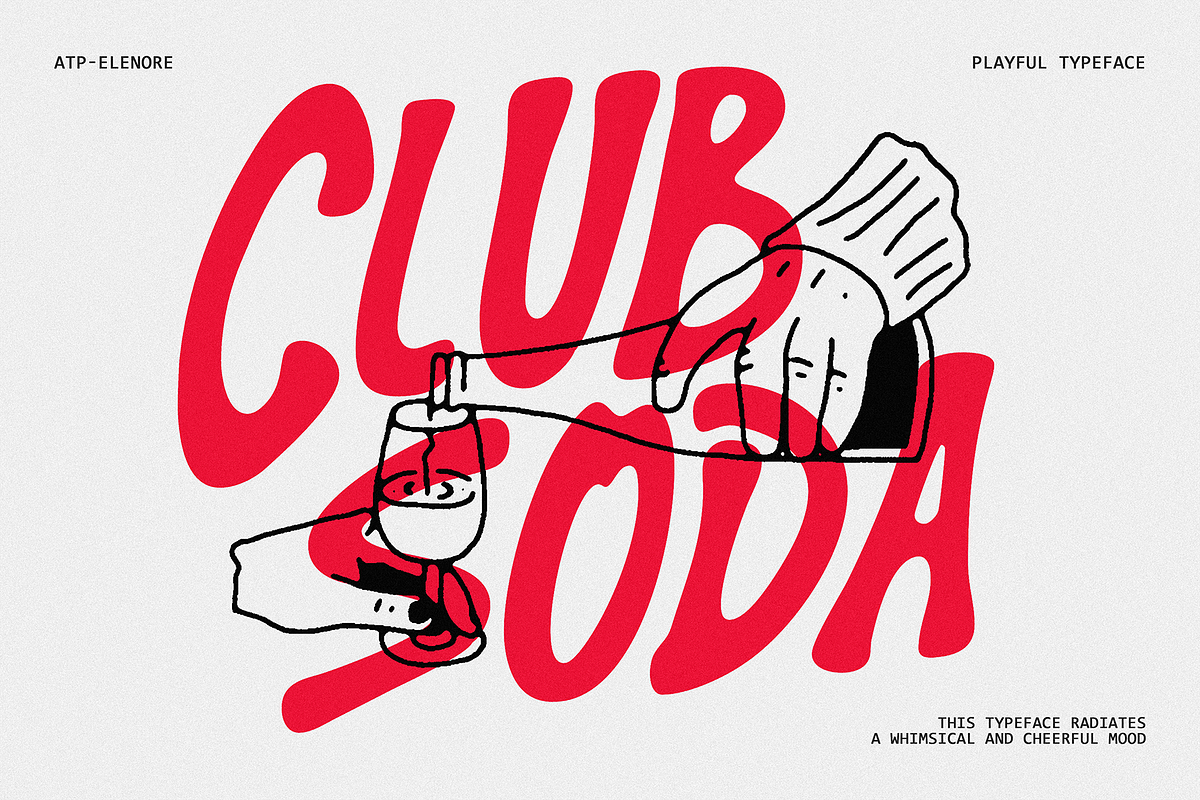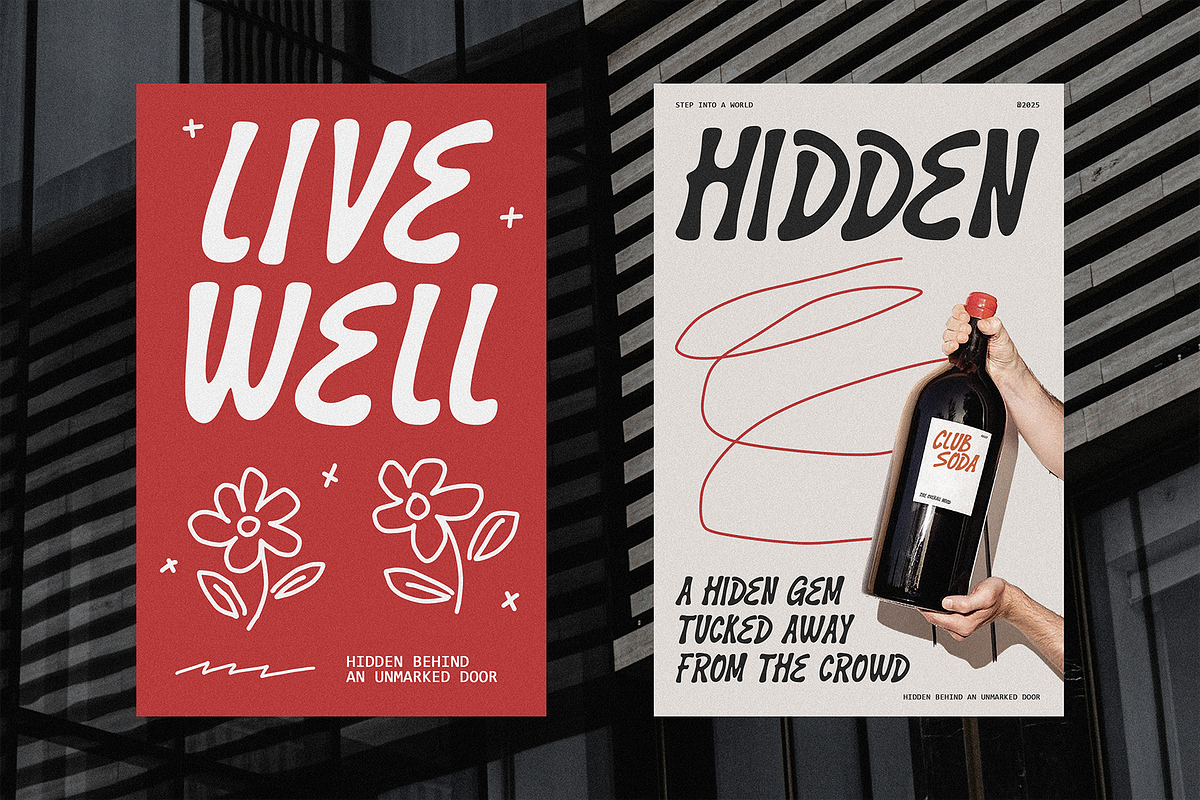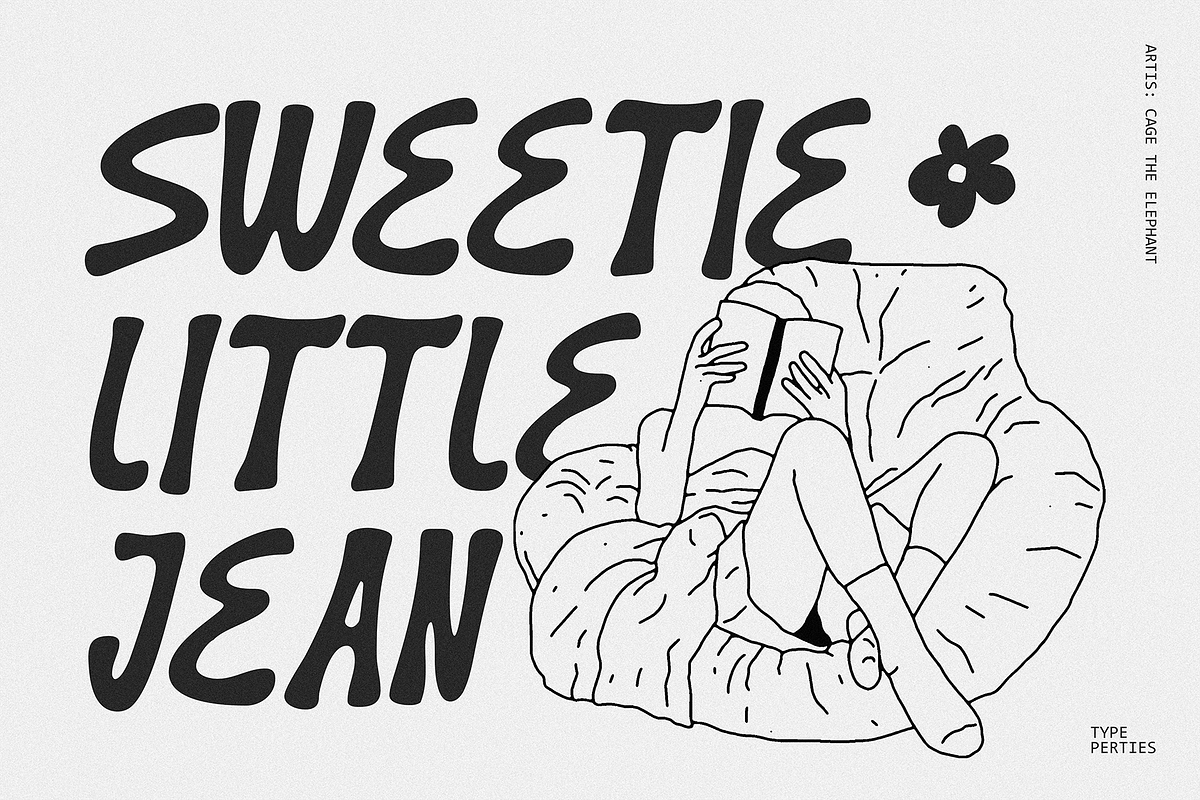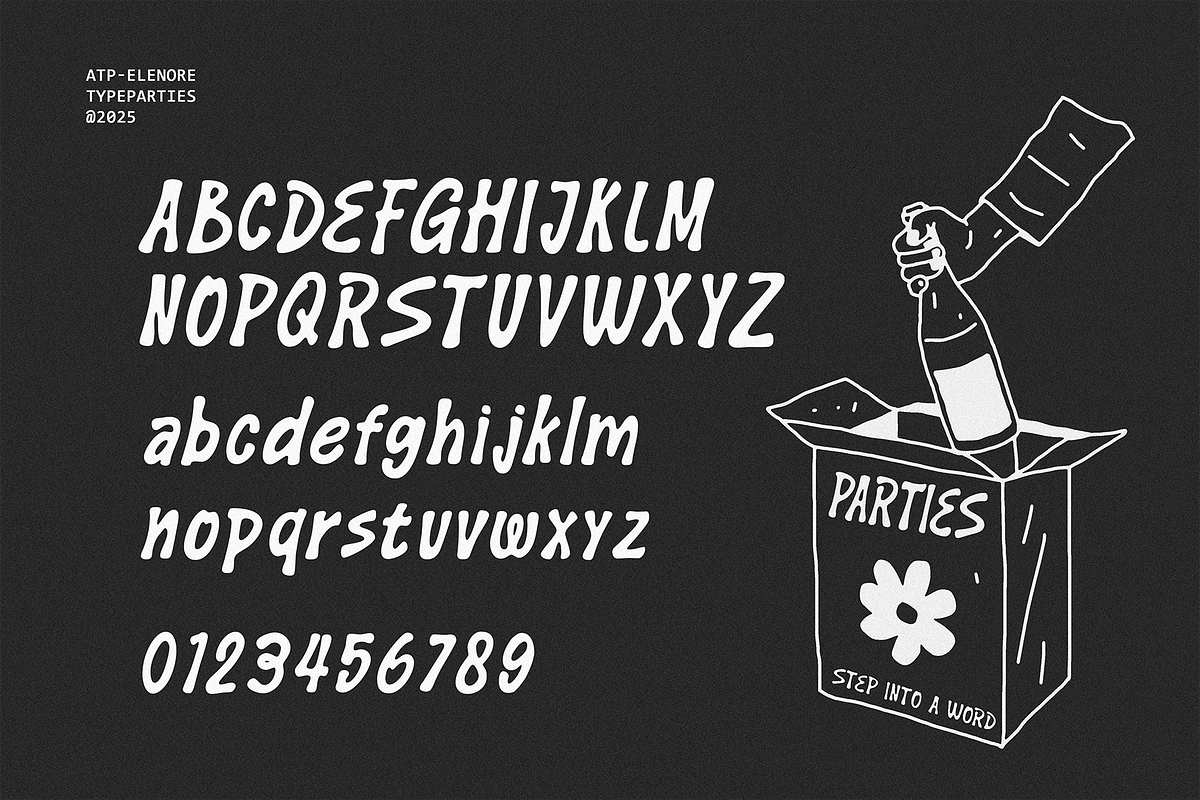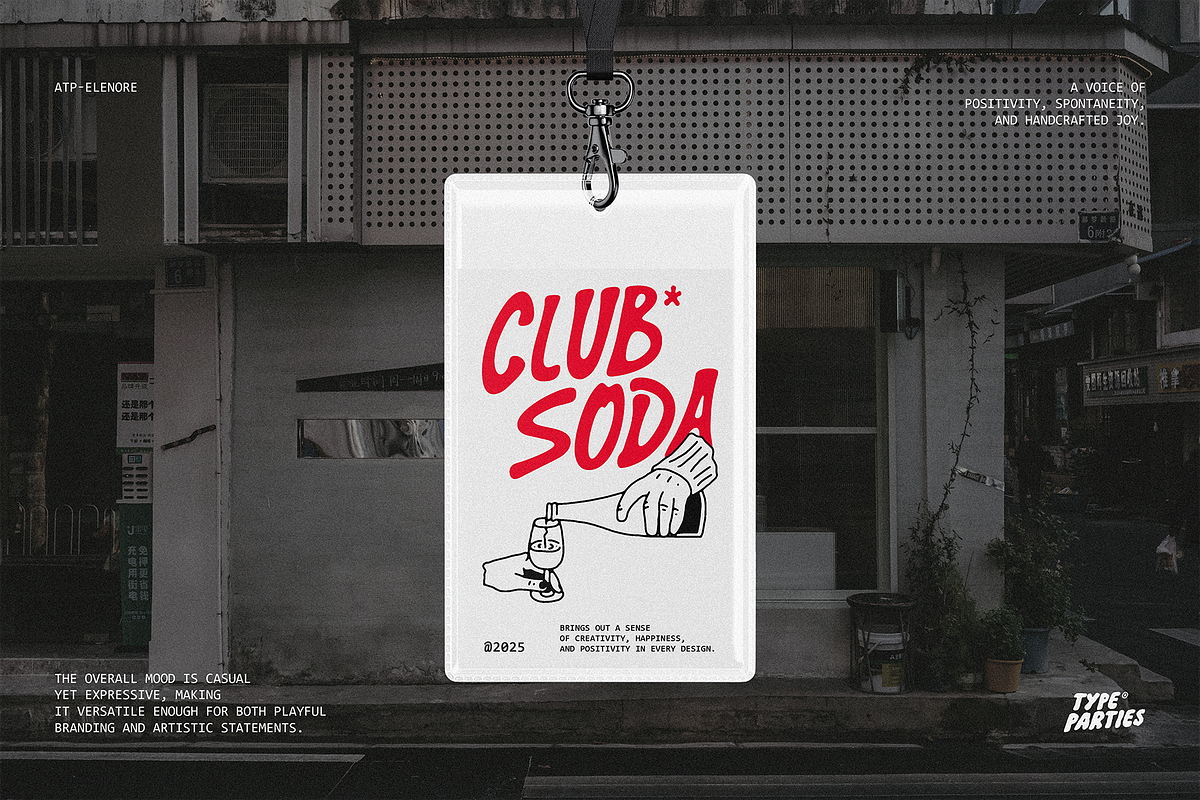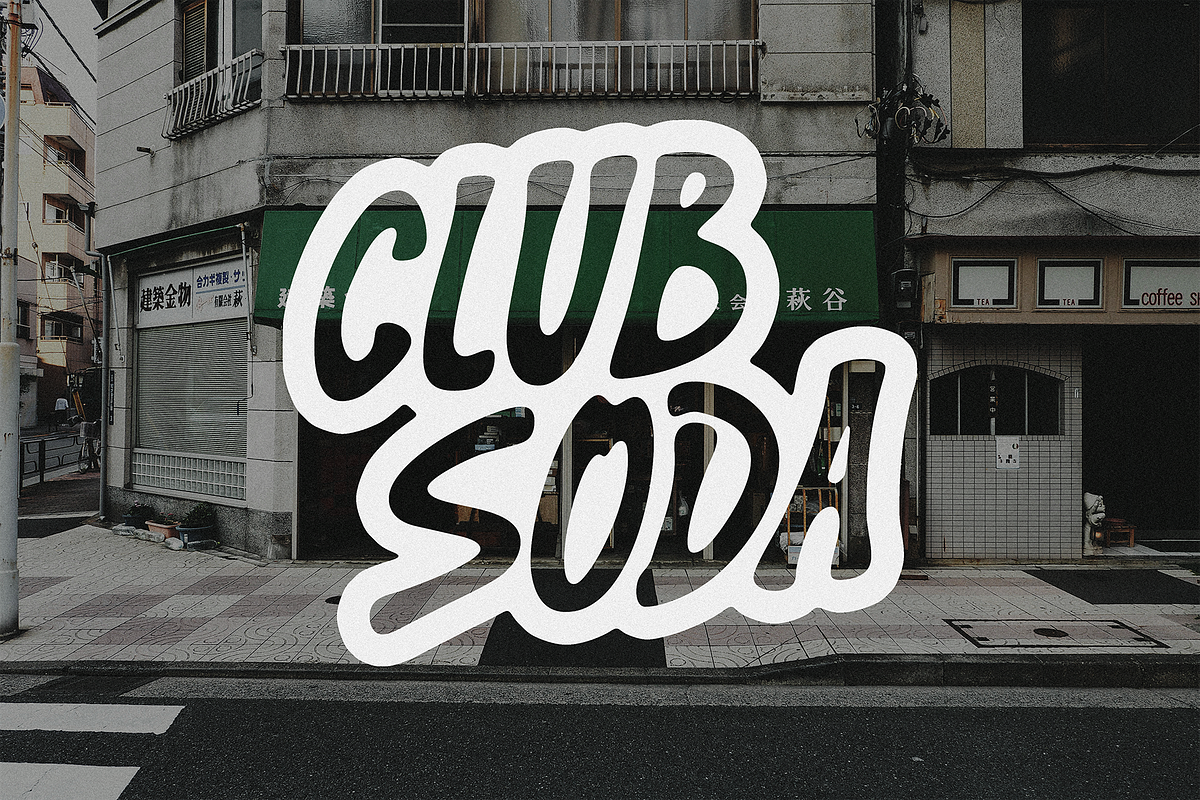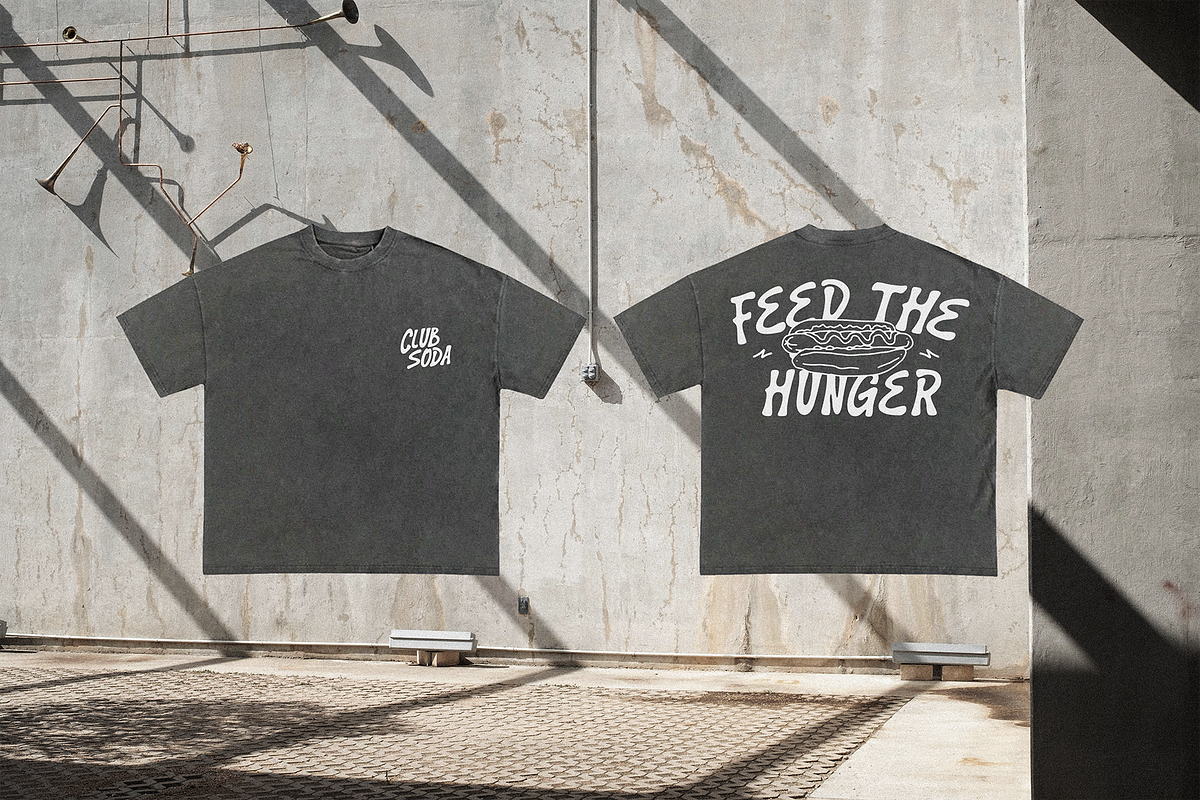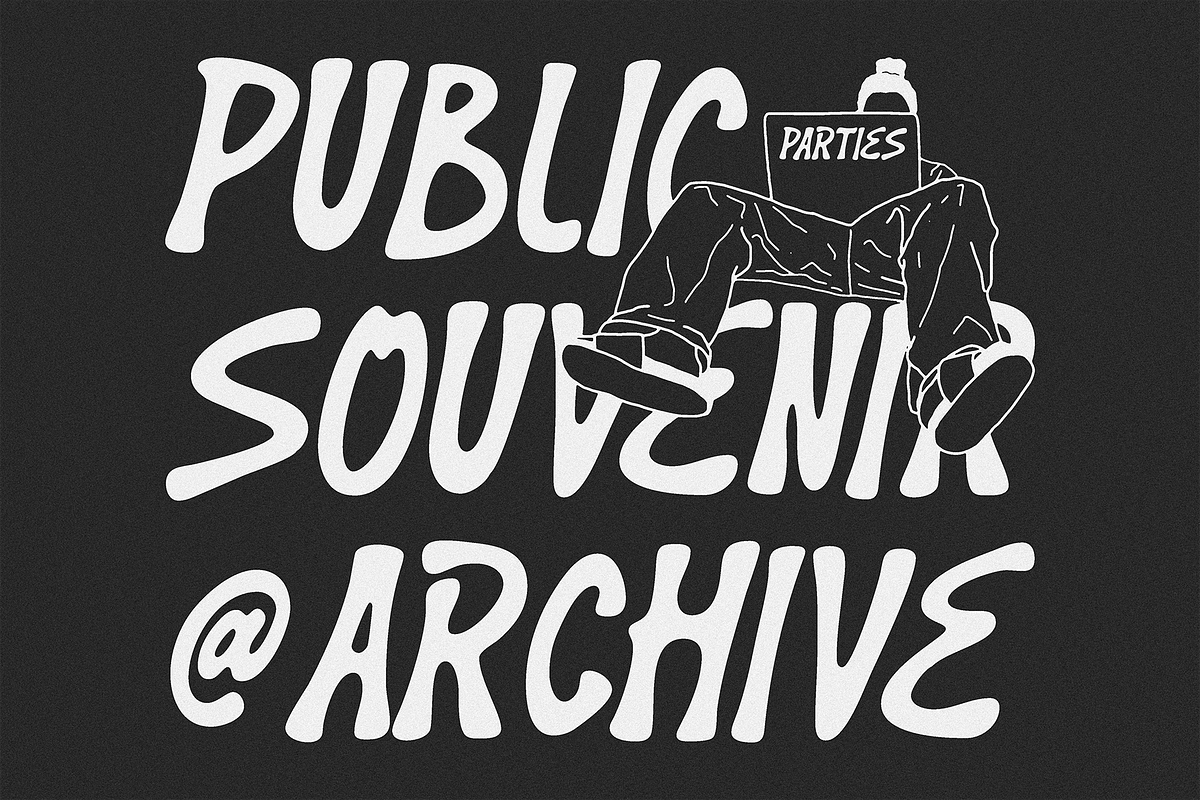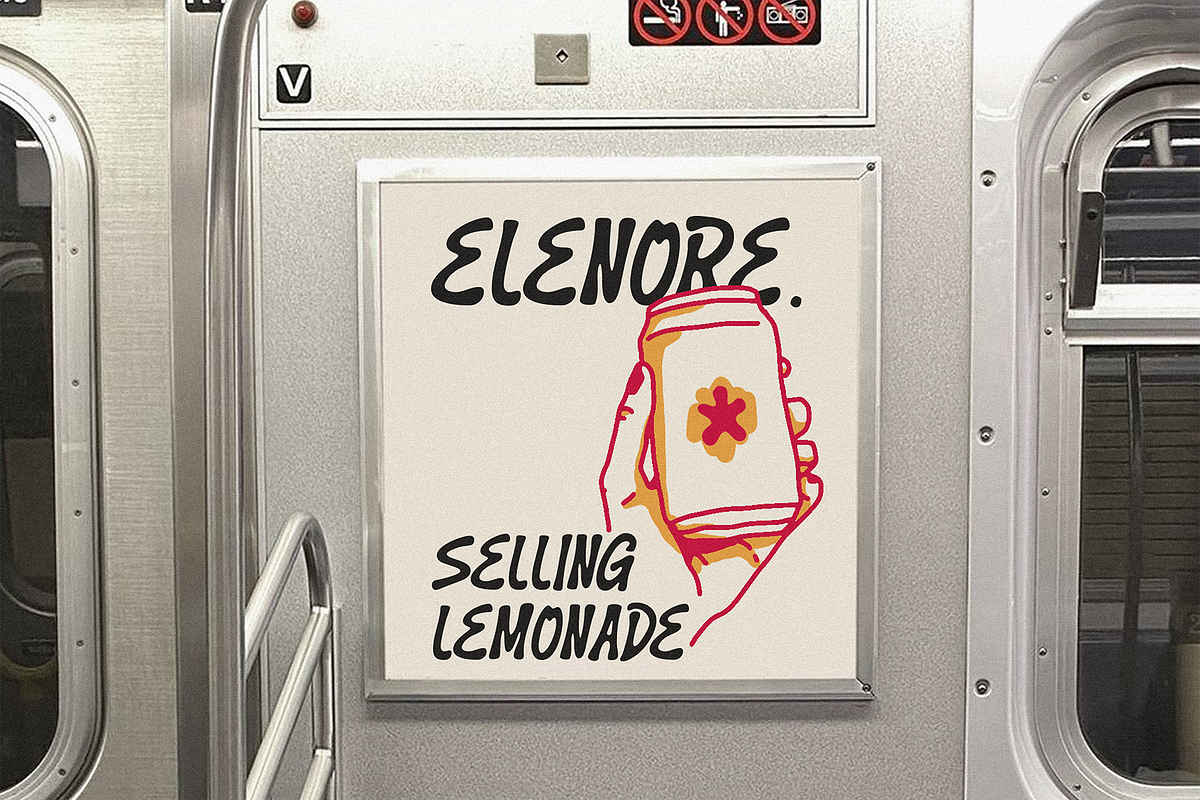
Elenore - Groovy Western Font
This typeface radiates a whimsical and cheerful mood, designed with slightly irregular, hand-drawn strokes that give it an authentic, playful touch. Each letterform feels spontaneous yet intentional, with tall proportions and narrow spacing that create a sense of movement and liveliness. The uneven stroke widths and subtle imperfections echo the charm of handwriting, making the font approachable, organic, and full of character. Rather than striving for mechanical precision, its irregularity is what makes it unique—expressing warmth, friendliness, and creativity.
Use cases for this font are broad, but it truly shines in design projects that require personality and charm. It’s a perfect choice for children’s books, greeting cards, lifestyle products, eco-conscious packaging, or handmade crafts. On social media, its whimsical energy helps captions, quotes, or announcements stand out with a friendly and engaging tone. For branding, it works beautifully with companies that want to feel approachable, creative, and down-to-earth, from small cafés and bakeries to wellness brands and lifestyle blogs.